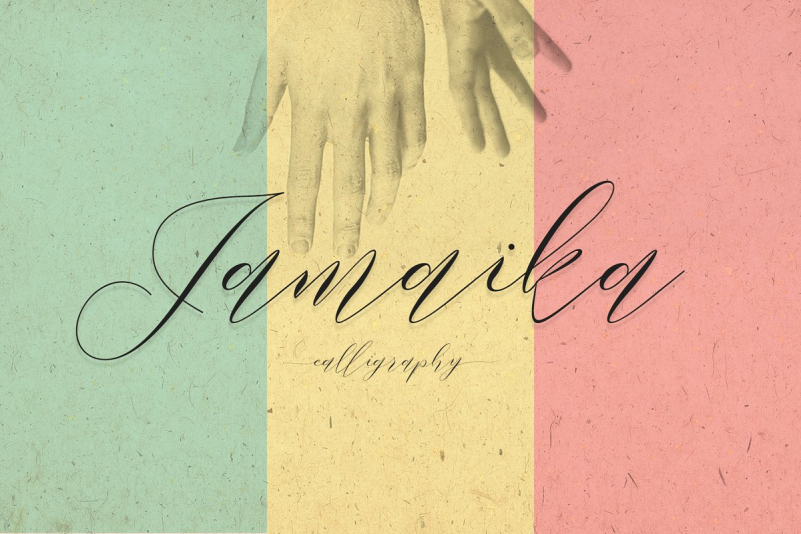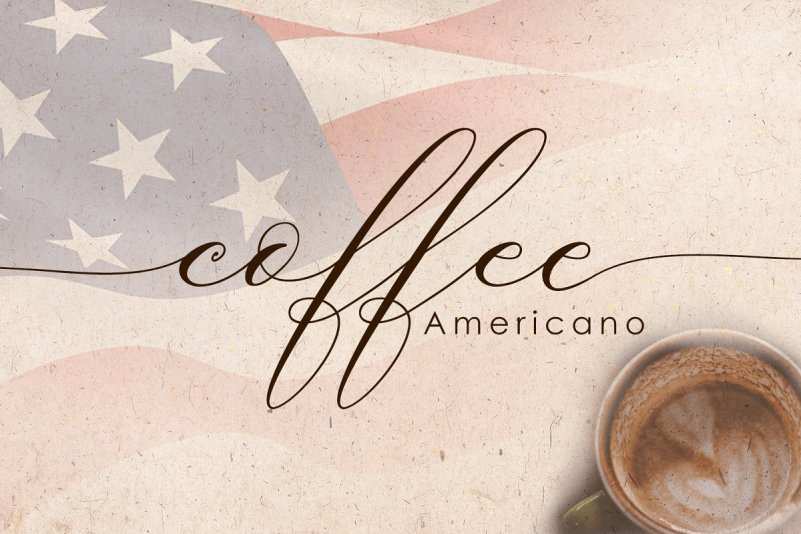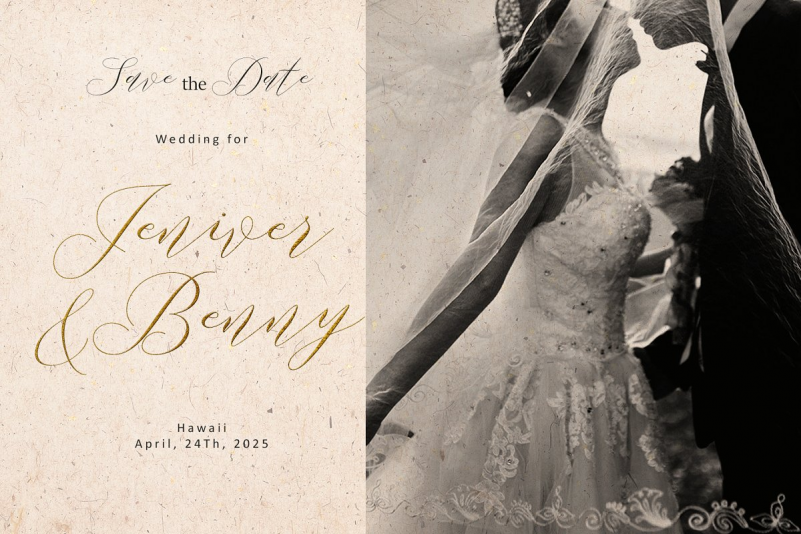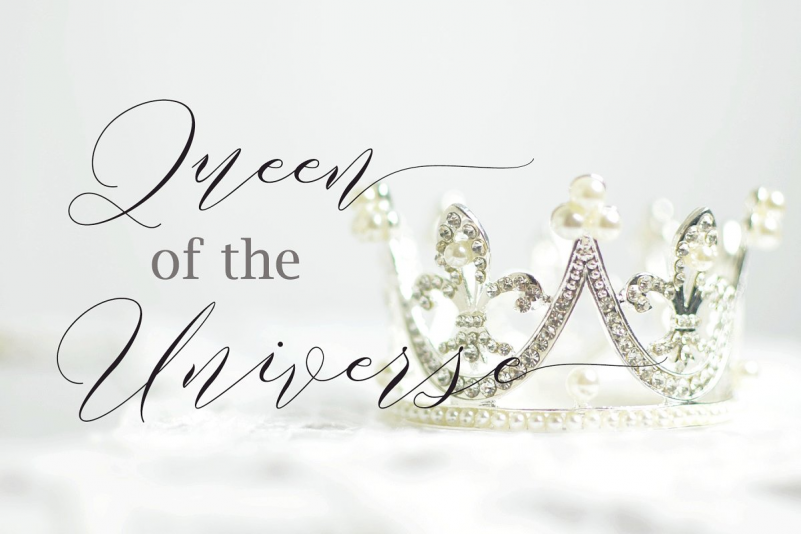
Jamaika Font
Jamaika is a font scrip, so, font script that is beautiful and unique, it is a model of modern calligraphy typefaces, in combination with a calligraphy writing style.